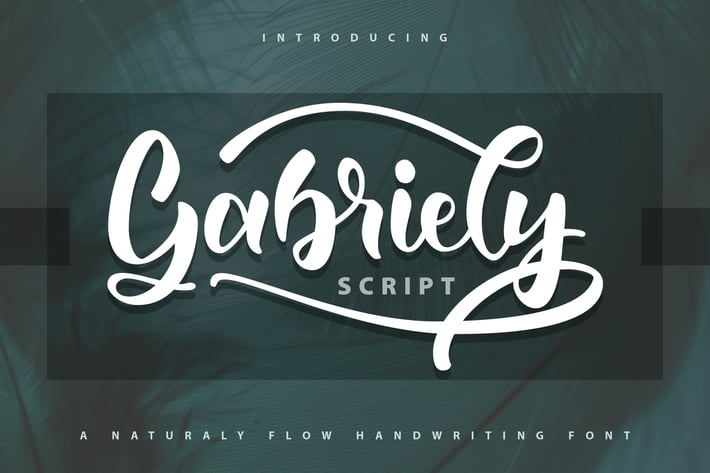
Gabrelly | Handwriting Script Font
Gabrelly | Handwriting Script Font with a calligraphy style, So beautiful on invitation like greeting cards, branding materials, business cards, quotes, posters, and more!